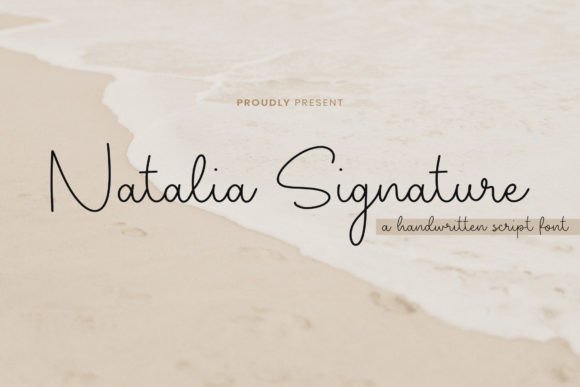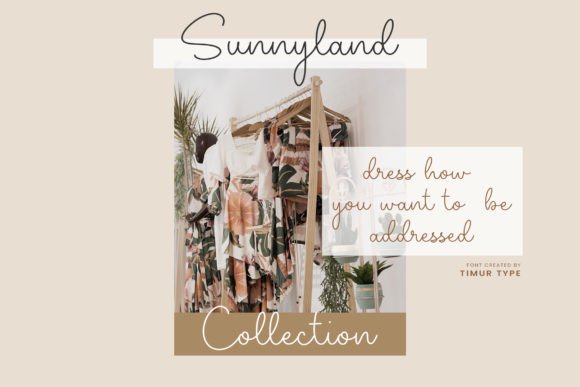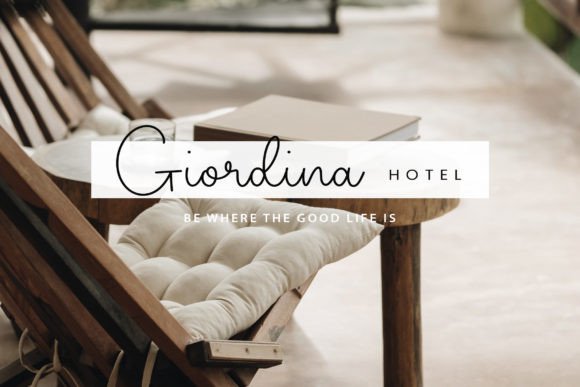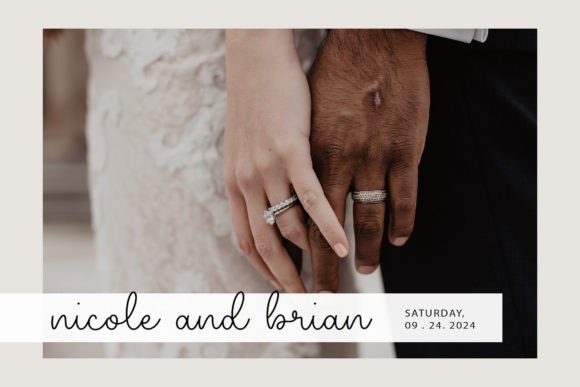
Natalia Signature Font
About the Natalia Signature Font
Meet Natalia Signature Font, a stunning font that brings a touch of elegance and professionalism to any design. Natalia Signature is a stylish and exclusive font that radiates luxury and refinement. With its elegant curves, fluid lines, and intricate flourishes, this font is perfect for creating a high-end and upscale feel for your designs. Elevate your branding, invitations, and other projects with the exclusive and sophisticated vibe of this font.
Natalia Signature’s elegant curves make it ideal for headlines, logos, and short, impactful text on high-end branding materials, invitations, or packaging. Its intricate details, however, are less suitable for body copy or UI elements where readability is paramount. Avoid using it for long paragraphs or small sizes.
The font’s inherent sophistication pairs well with clean sans-serif fonts like Montserrat or Lato for a balanced contrast, or a modern serif such as Playfair Display for a more traditional yet refined look. A simple geometric sans-serif could also provide a striking counterpoint.
Natalia Signature projects a feeling of refined luxury and exclusivity. It is best suited for brands aiming for a sophisticated and upscale image.
Natalia Signature Font Usage Examples
Natalia Signature Font Example